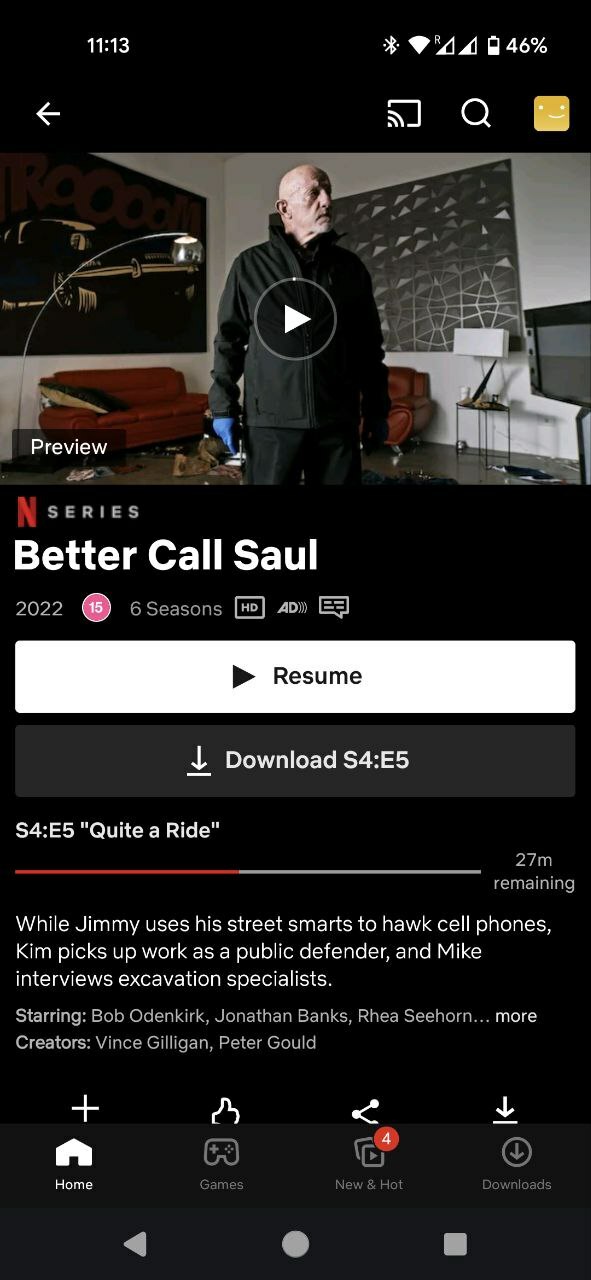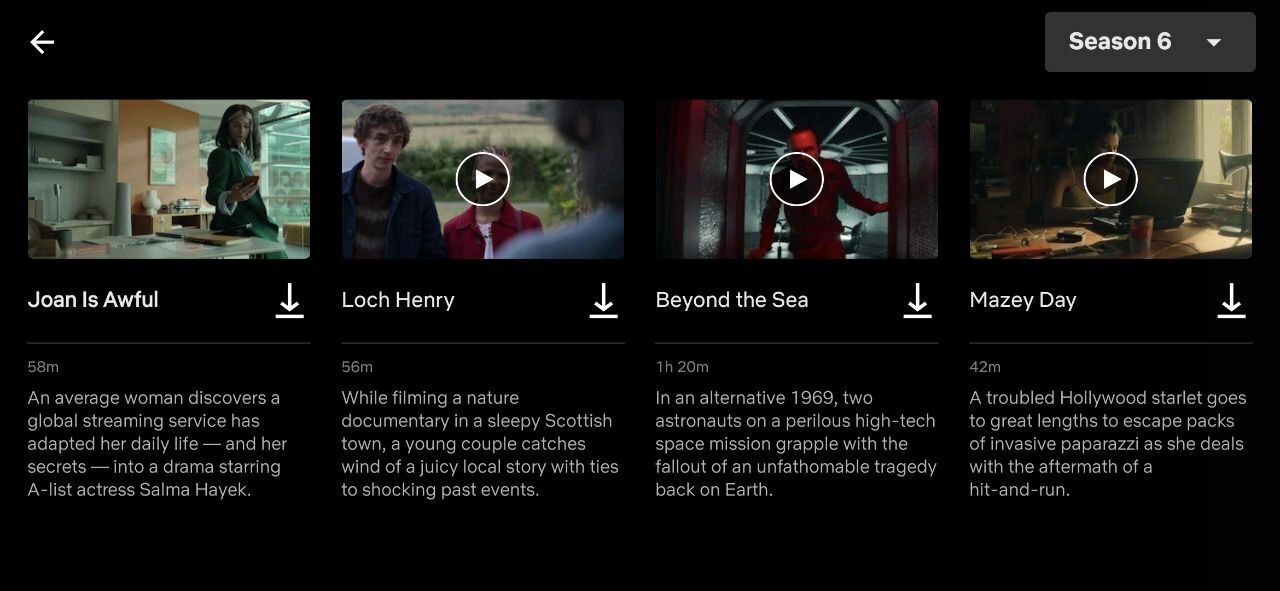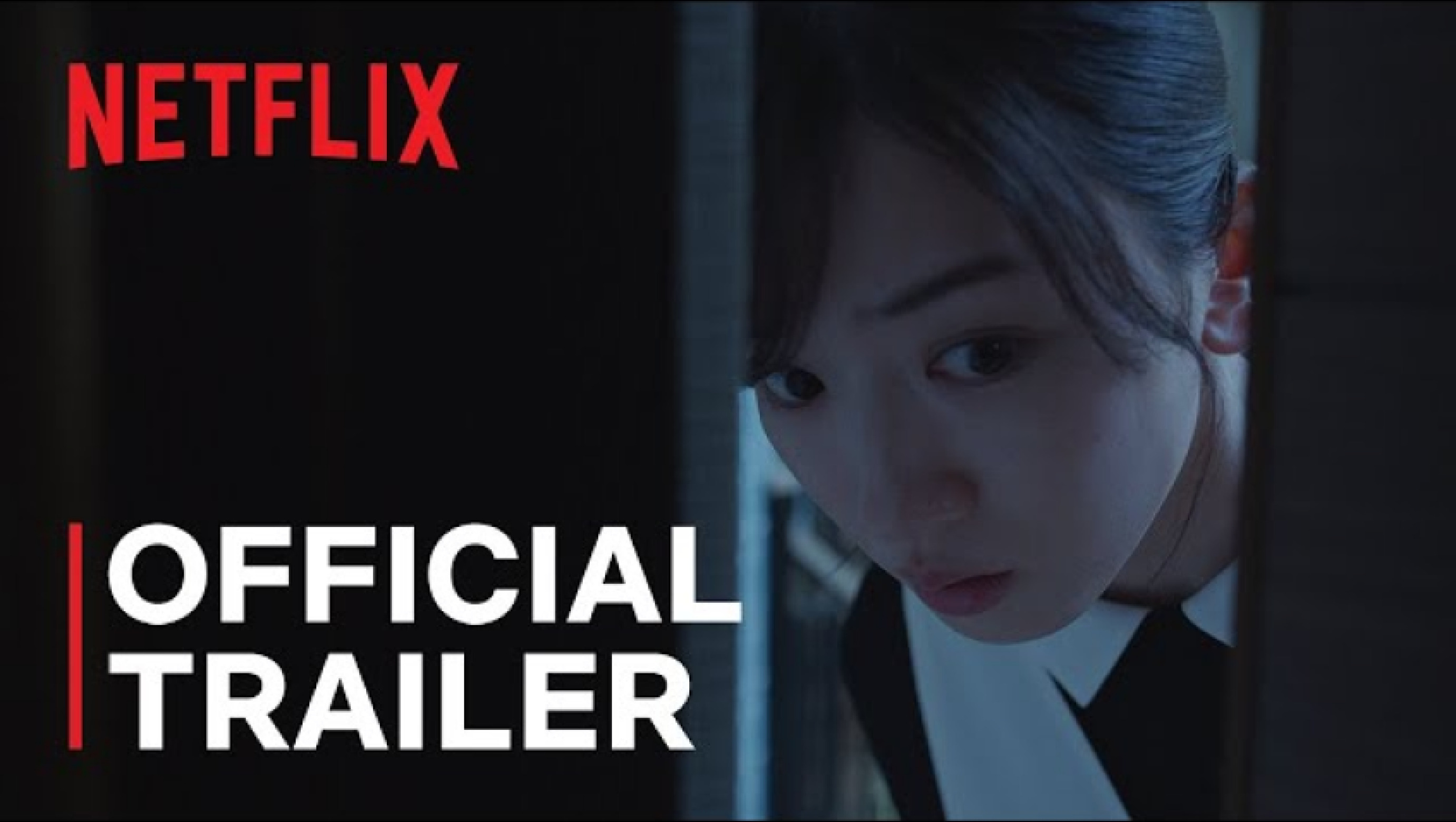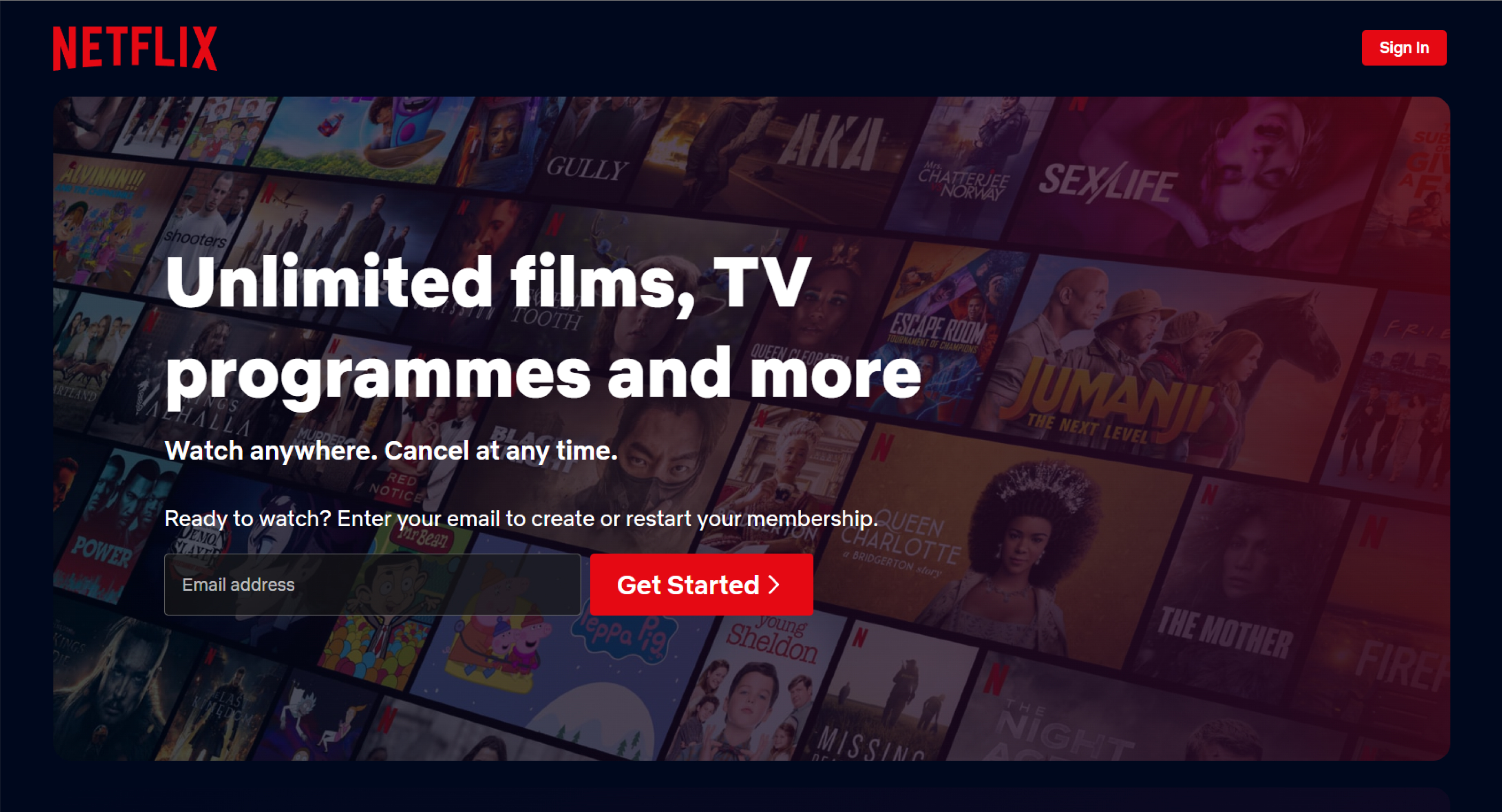
Netflix Sans
A Custom Font Family for Netflix
Netflix Sans login screen
Netflix Sans specimen reading 'Entertainment, New releases, On-demand, Streaming revolution'
Netflix Sans weight range from Ultra Condensed Thin, to Ultra Extended Black, with matching italics
Promotional image for Netflix Upfront 2023
Netflix Sans Official Trailer
Netflix mobile app
Netflix mobile app episode select screen
Frame from Netflix promotional content reading 'Stories move us. They make us feel more emotional, see new  perspectives, and bring us closer to each other.'
Netflix saw an opportunity to unify the brand’s typographic expression across diverse uses, from striking billboards to micro scale subtitles. Working with both marketing and product teams, we designed a contemporary typeface that perfectly supports their dynamic brand.
Netflix Sans, Custom Font Family, 2017–2023
Netflix Sans font styles showcase
Netflix Sans Writing Systems